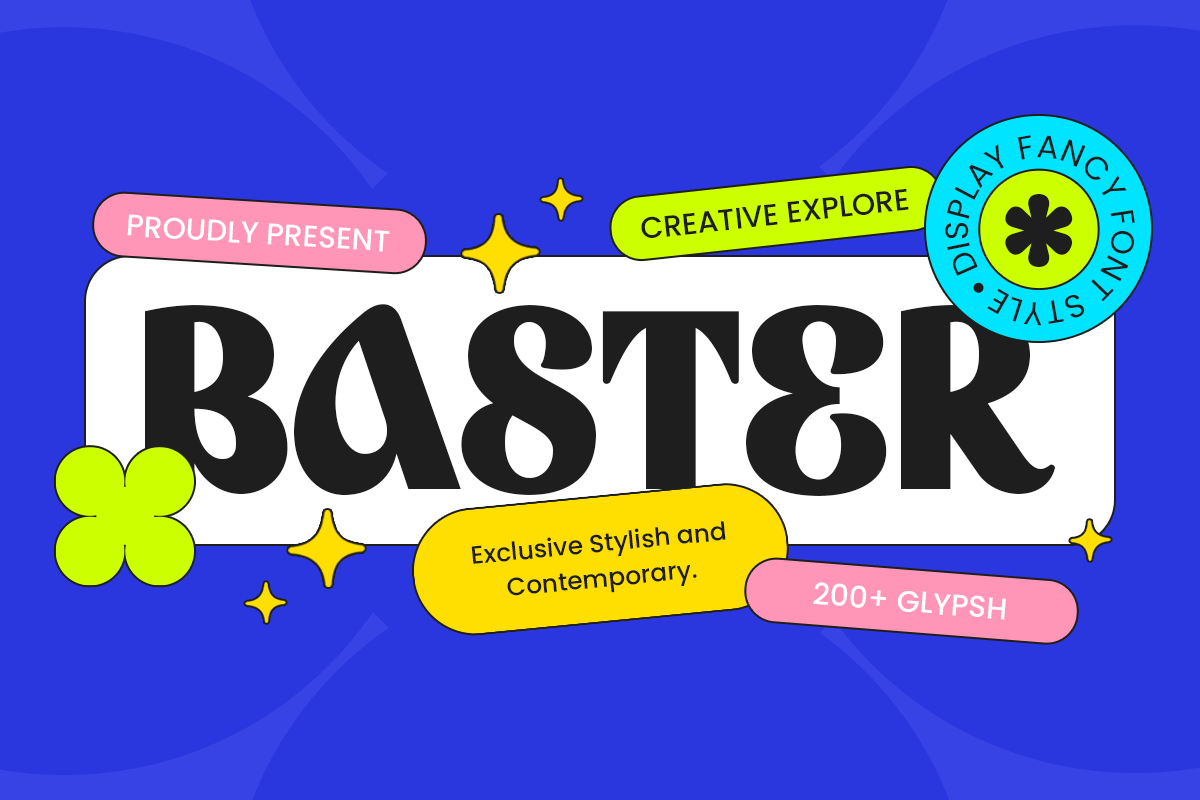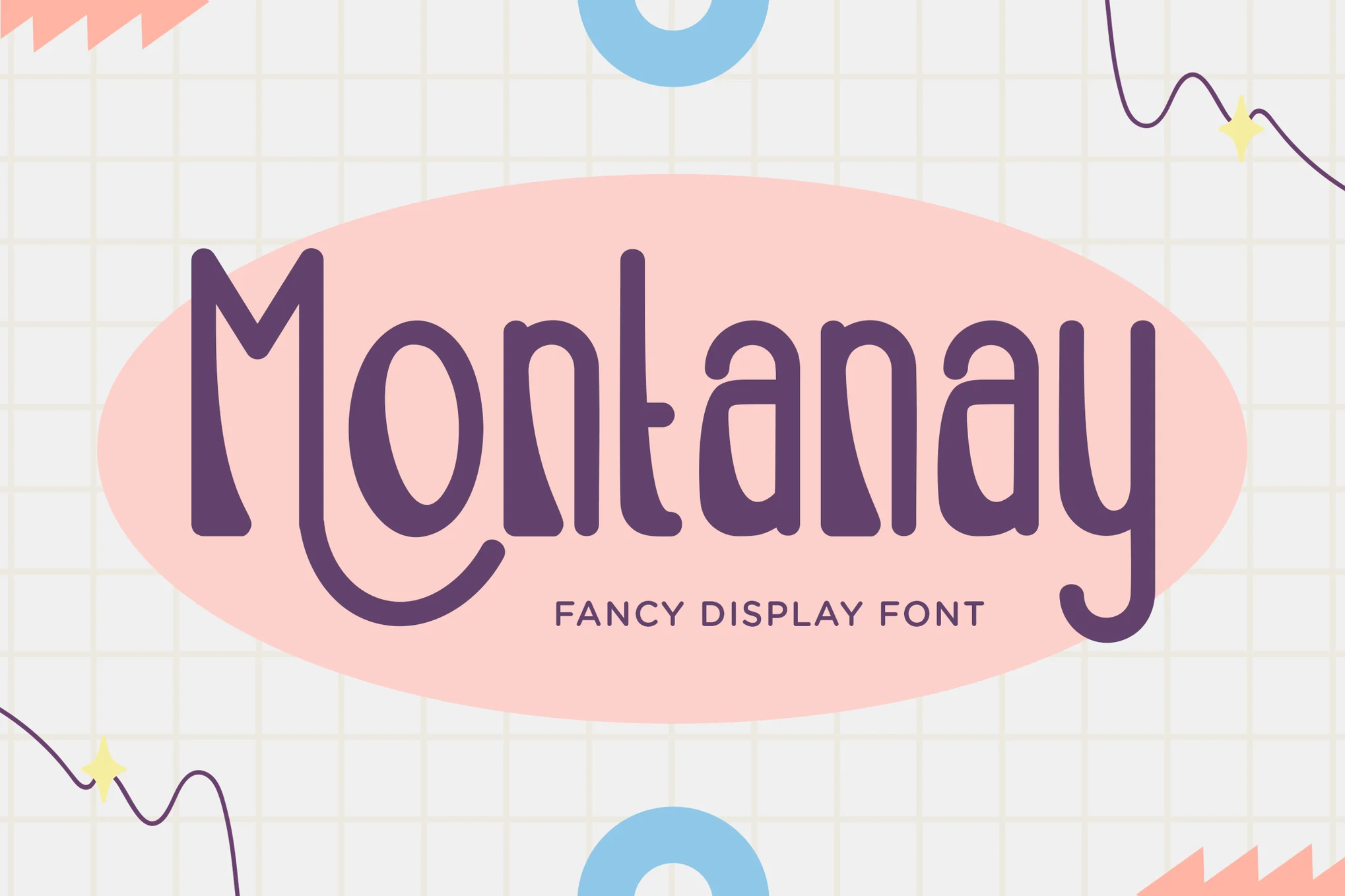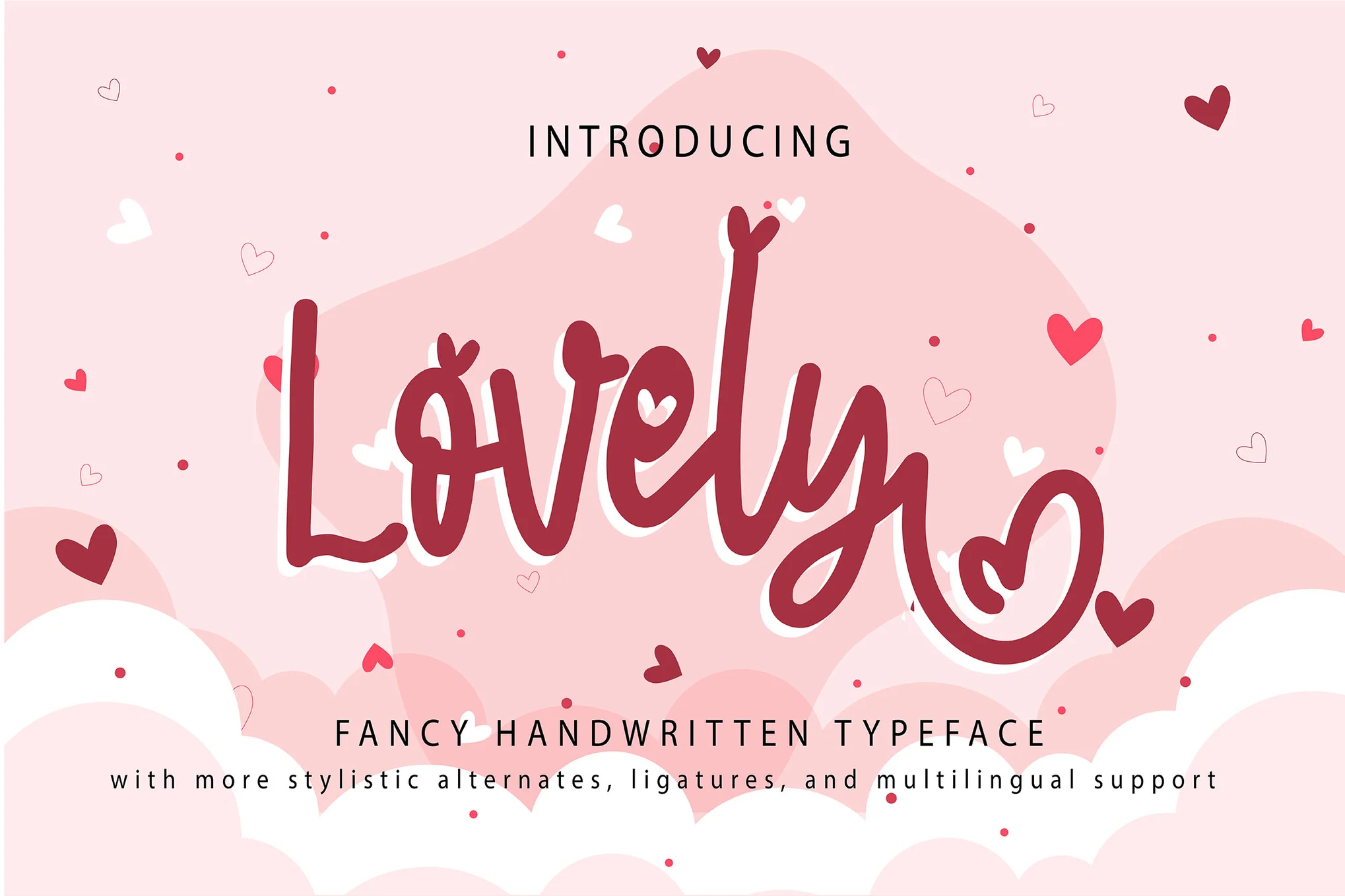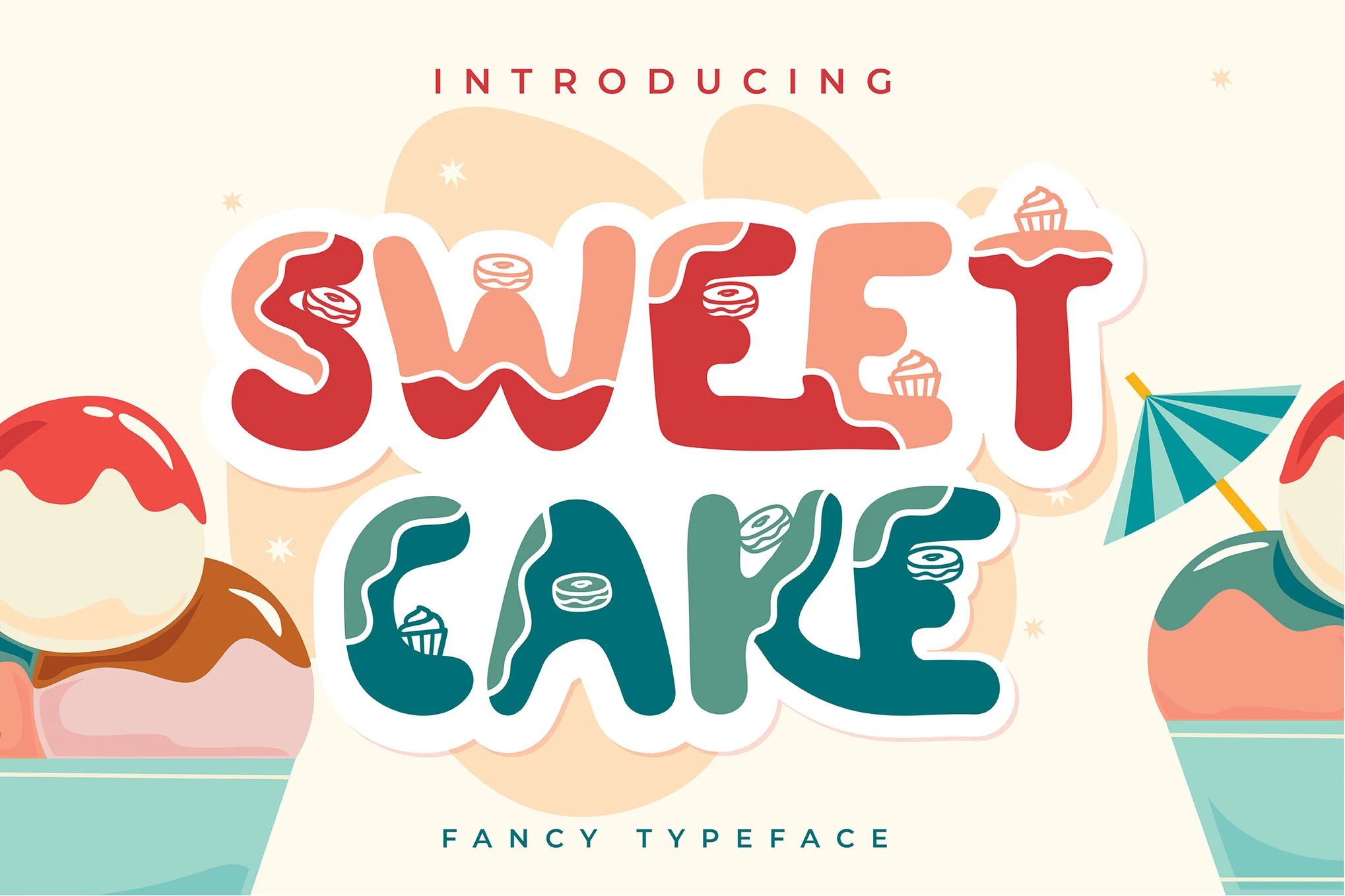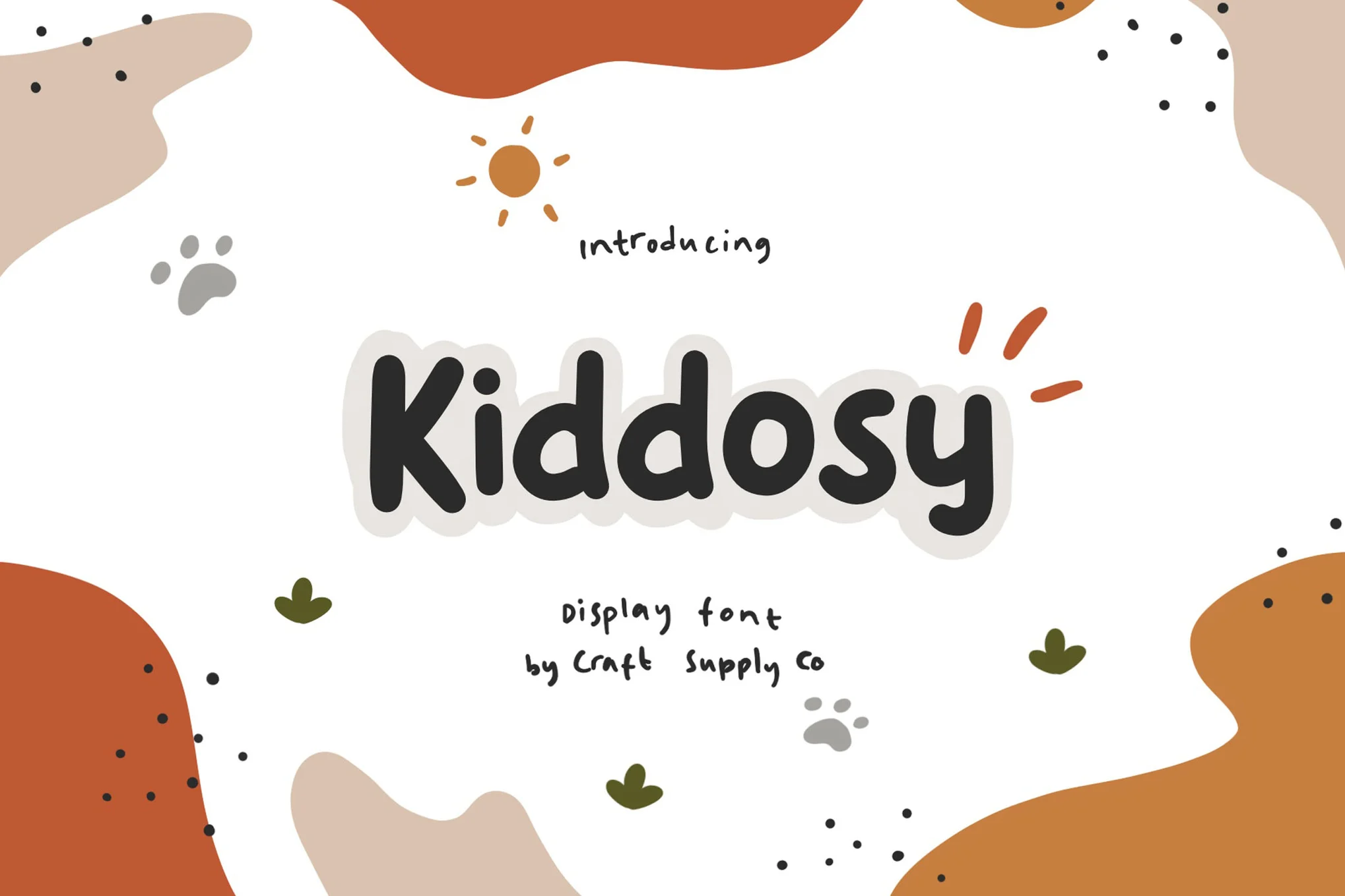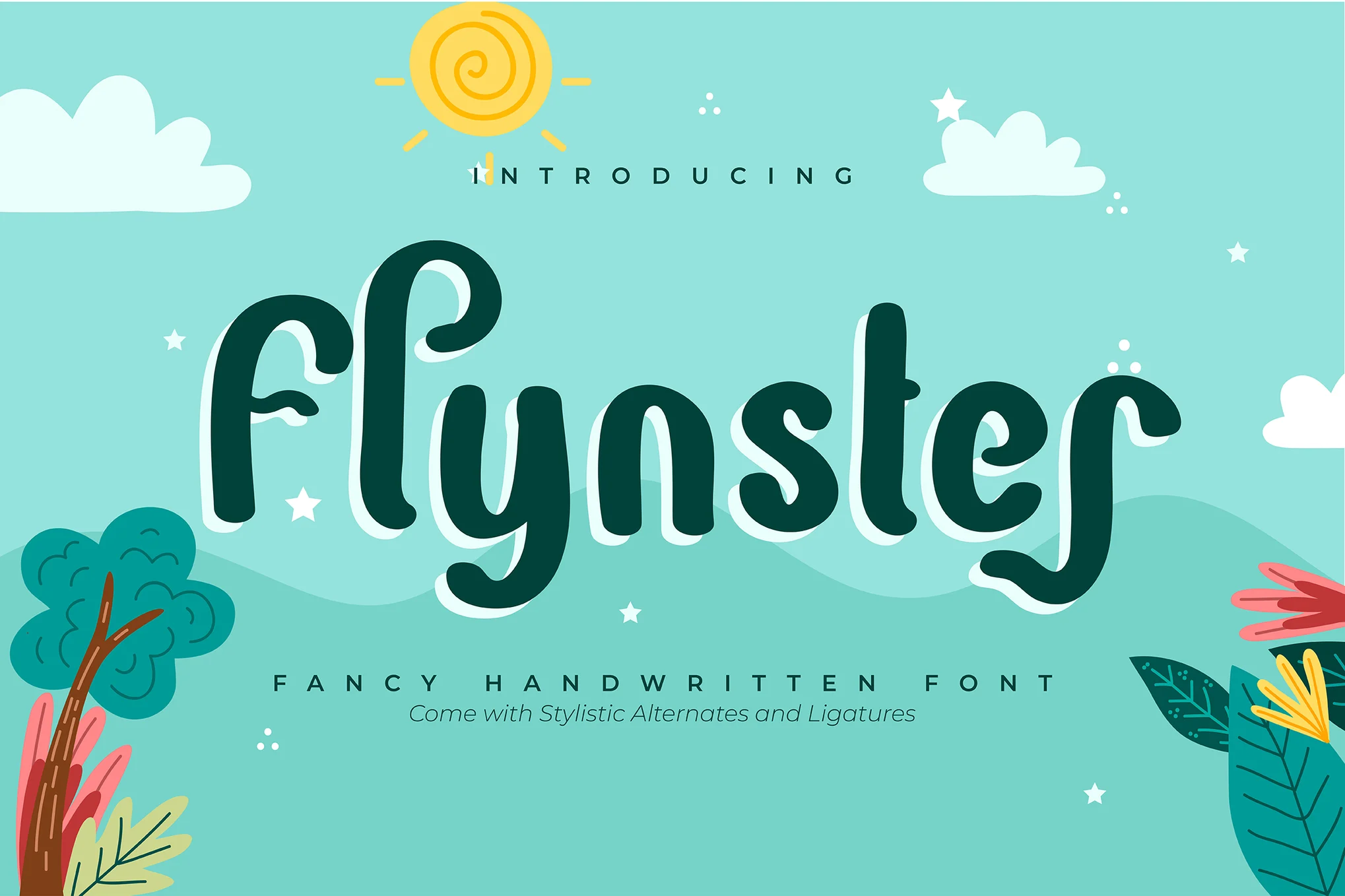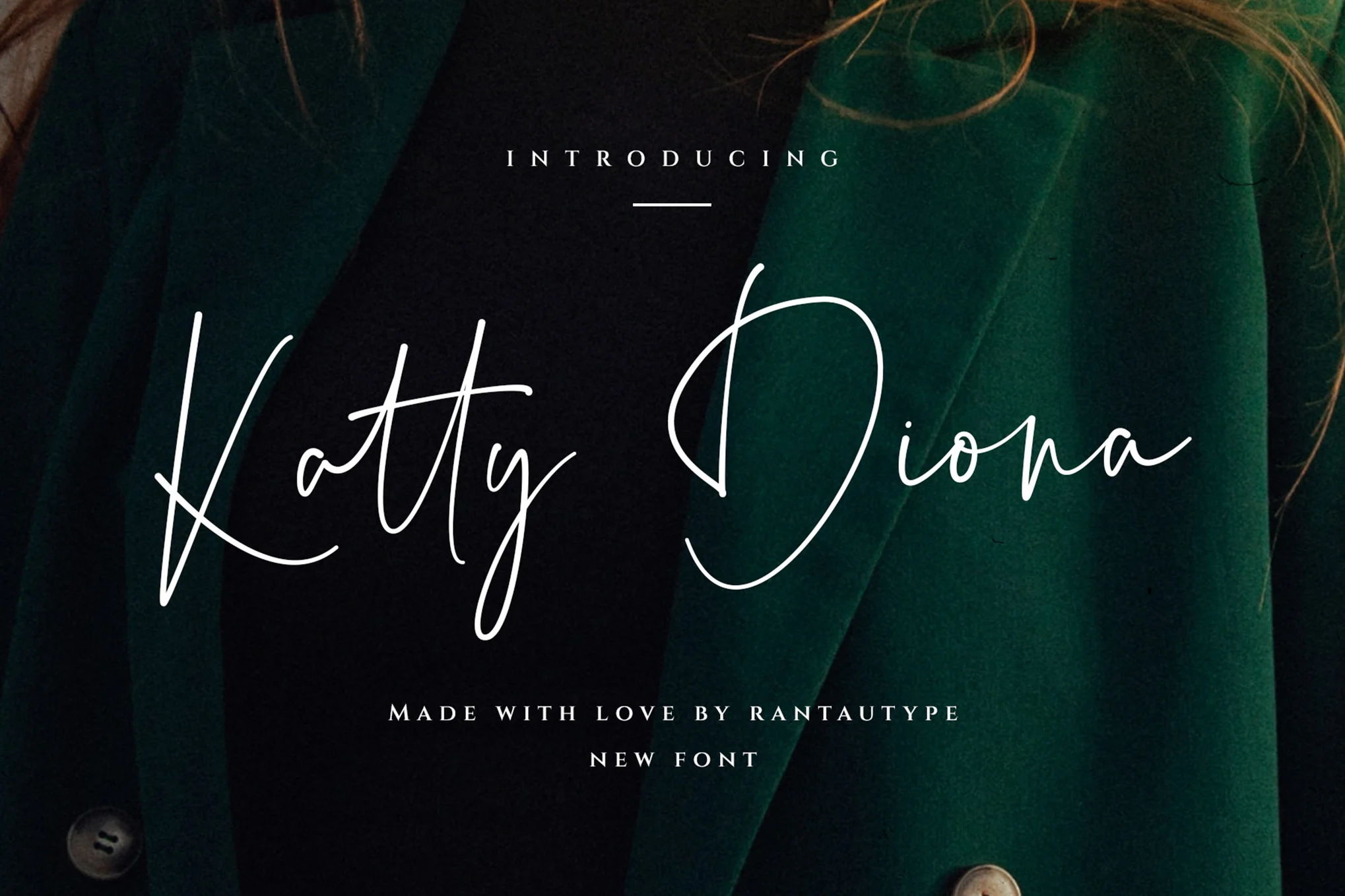
Fancy Font Designs: How Creative Typography Transforms Your Brand Identity
In the world of digital branding and visual communication, Fancy Font Designs play a more powerful role than most people realize. Whether you are designing a logo, crafting a website, creating social media graphics, or developing marketing materials, the typography you choose sets the tone for your entire message. With the rise of creative design tools and modern typography trends, Fancy Fonts have become one of the most effective ways to make content stand out in an overcrowded digital space.
Typography is more than just selecting a stylish font—it is about creating a visual personality that aligns with your brand identity. Fancy Font Designs allow designers to elevate simple ideas into visually appealing and memorable experiences. From elegant script fonts to bold decorative styles, they bring emotion, uniqueness, and attention-grabbing aesthetics to every project.
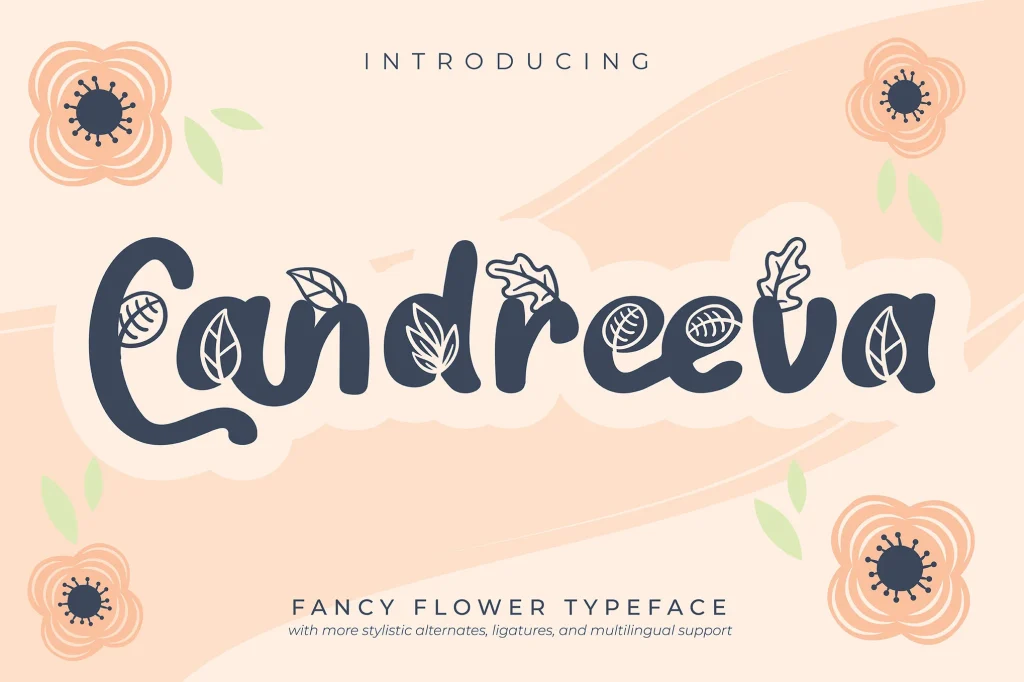
Why Fancy Font Designs Matter in Modern Branding
The digital audience today scrolls through thousands of images, posts, and advertisements every single day. In this competitive environment, getting someone to pause and pay attention is becoming harder than ever. This is where Fancy Font Designs make a significant difference. A visually captivating font can instantly grab attention and convey the right feeling even before the viewer reads the text.
For example, a luxury brand may use sophisticated, high-contrast serif fonts to reflect elegance and exclusivity. A playful children’s brand might use fun, bubbly Fancy Fonts that add a sense of joy and creativity. A modern tech brand could choose sleek, futuristic typography that communicates innovation and reliability.
Fancy font styles allow businesses to differentiate themselves while creating consistent visual stories across their websites, packaging, banners, and advertisements. They become a part of the brand identity, just like the logo or color palette.
The Emotional Power of Fancy Fonts
Fonts have personalities. They can be romantic, bold, formal, friendly, futuristic, artistic, or nostalgic. Fancy Font Designs take this emotional element a step further by adding extra beauty, style, and creative flair.
1. They evoke emotions instantly
Fancy Fonts help translate the emotional tone of the message. A handwritten script font feels personal and warm, while a vintage decorative font can create a sense of nostalgia.
2. They improve readability and retention
Attractive typography is easier on the eyes and helps readers stay engaged. When people spend more time on your page, search engines notice—boosting your SEO performance.
3. They strengthen brand consistency
Using the right fancy font across all branding materials makes your brand instantly recognizable and memorable.
Where to Use Fancy Font Designs Effectively
While Fancy Fonts are highly impactful, they work best when used strategically. Overusing decorative typography can clutter the design and reduce readability. The key is balancing creativity with clarity.
Here are some ideal places to use Fancy Font Designs:
Logo Design
A logo is often the first element people associate with your brand. Fancy Fonts can help create iconic, stylish, and distinctive logos that leave a strong first impression.
Website Headlines
Online visitors decide within seconds whether to stay or leave. Using an attractive fancy font for your titles and headings can increase engagement and reduce bounce rates.
Social Media Posts
Platforms like Instagram, Pinterest, and Facebook rely heavily on visuals. Fancy Fonts make your content eye-catching and more likely to be shared.
Invitations & Greeting Cards
From wedding invitations to holiday cards, Fancy Font Designs add elegance and personal touch to special messages.
Product Packaging
Creative typography can instantly elevate the appearance of product labels, making them look premium and desirable.
Popular Styles of Fancy Font Designs
Fancy Fonts come in many styles, each suitable for different types of projects. Knowing these categories helps designers choose the perfect match for their message.
Elegant Script Fonts
These resemble graceful handwriting and are ideal for luxury brands, invitations, and formal designs. They add sophistication and charm.
Harmony and balance are key. A beautifully designed fancy font should complement your content—not overpower it.
Conclusion
Fancy Font Designs bring creativity, elegance, and visual charm to any project. Whether you’re enhancing your logo, building a website, or designing promotional graphics, the right Fancy Fonts can dramatically transform the user experience and strengthen your brand identity. When used strategically, they make your message more engaging, memorable, and impactful—helping your brand stand out in today’s highly competitive digital world.